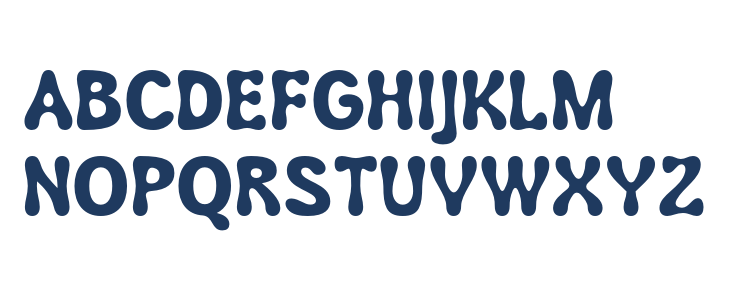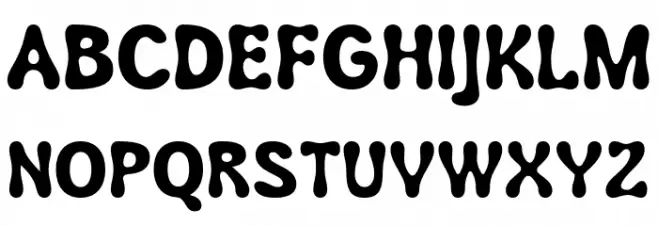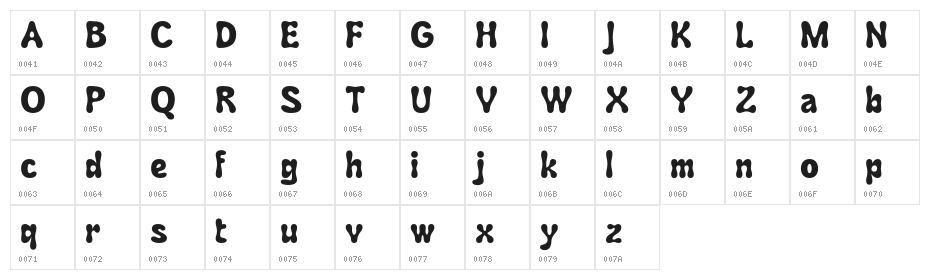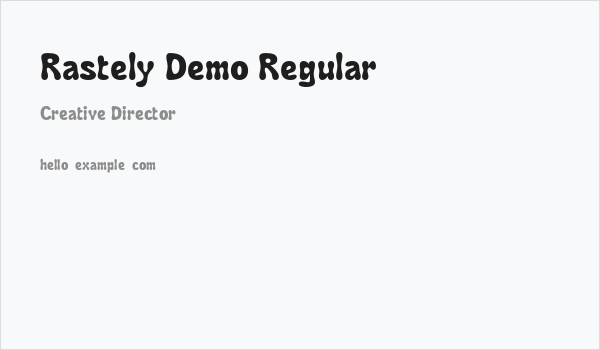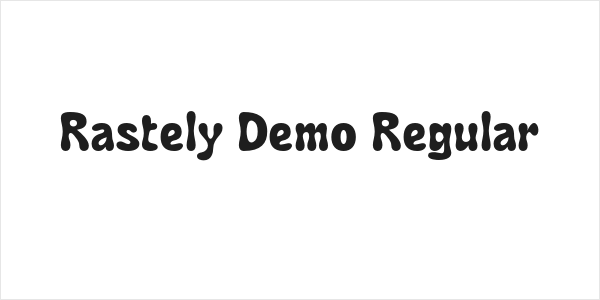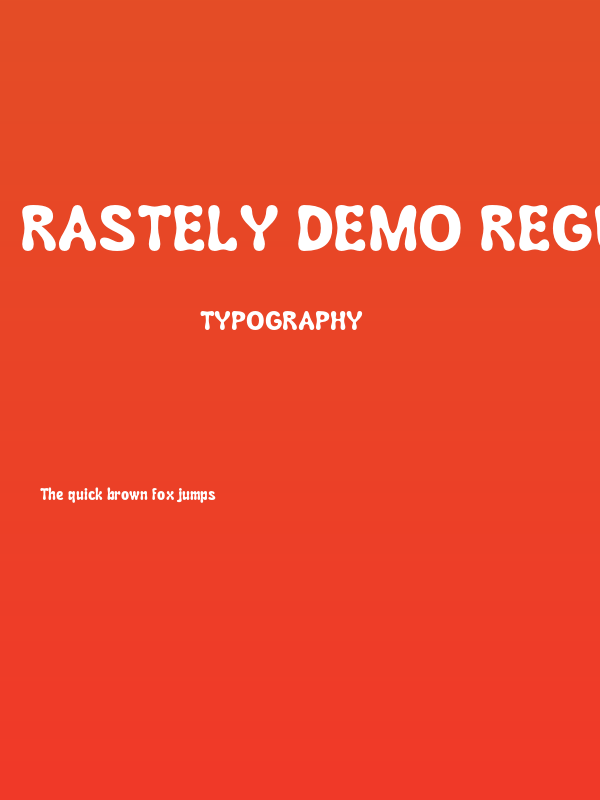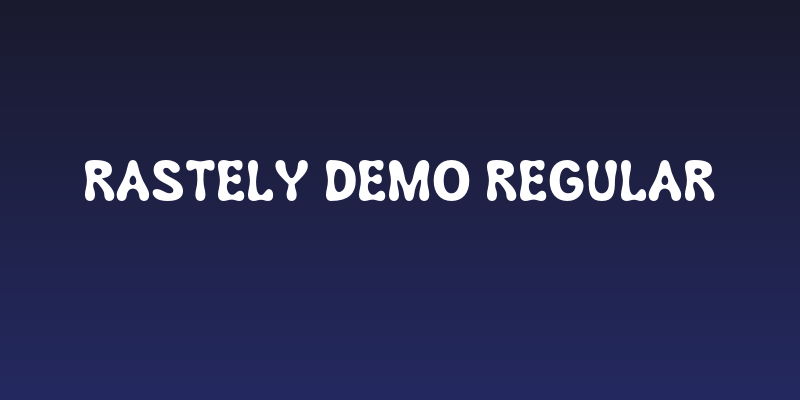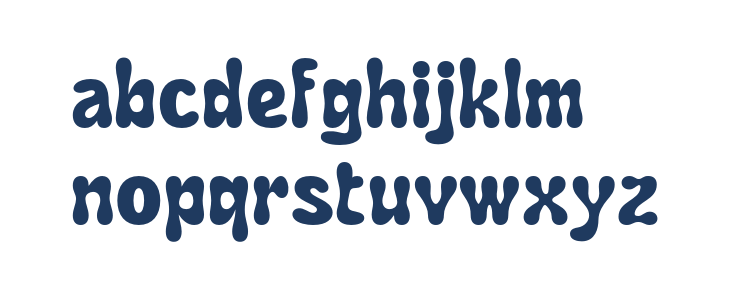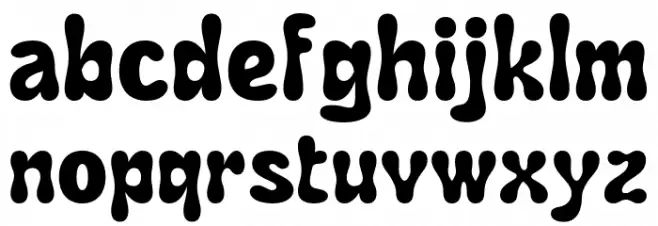
Rastely Demo Regular Font
Rastely Demo Regular Description
A playful, bold display typeface with rounded, organic letterforms and irregular, blobby contours, giving it a whimsical and friendly appearance.
| Overall Style | Playful, Decorative, Whimsical |
| Use Case | Headlines, Posters, Logos, Children's materials |
| Proposed Projects | Children's books, posters, party invitations, branding for playful products, event flyers. |